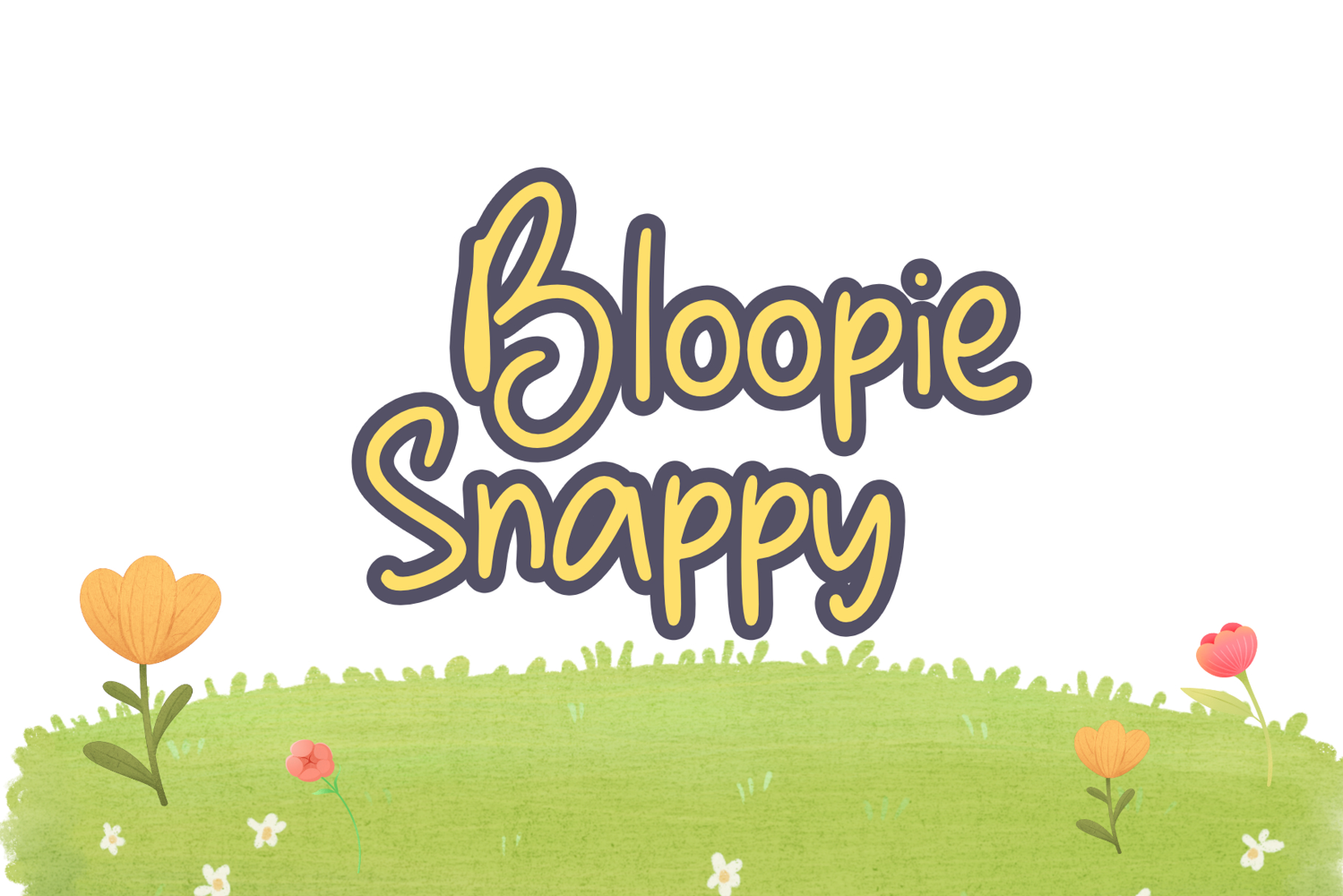
Bloopie Snappy
BloopieSnappy
Bloopie Snappy is a premium decorative font with a playful and whimsical style. Its unique design features exaggerated loops and curves, giving it a fun and energetic vibe. Perfect for adding a touch of personality to invitations, branding, and other creative projects.